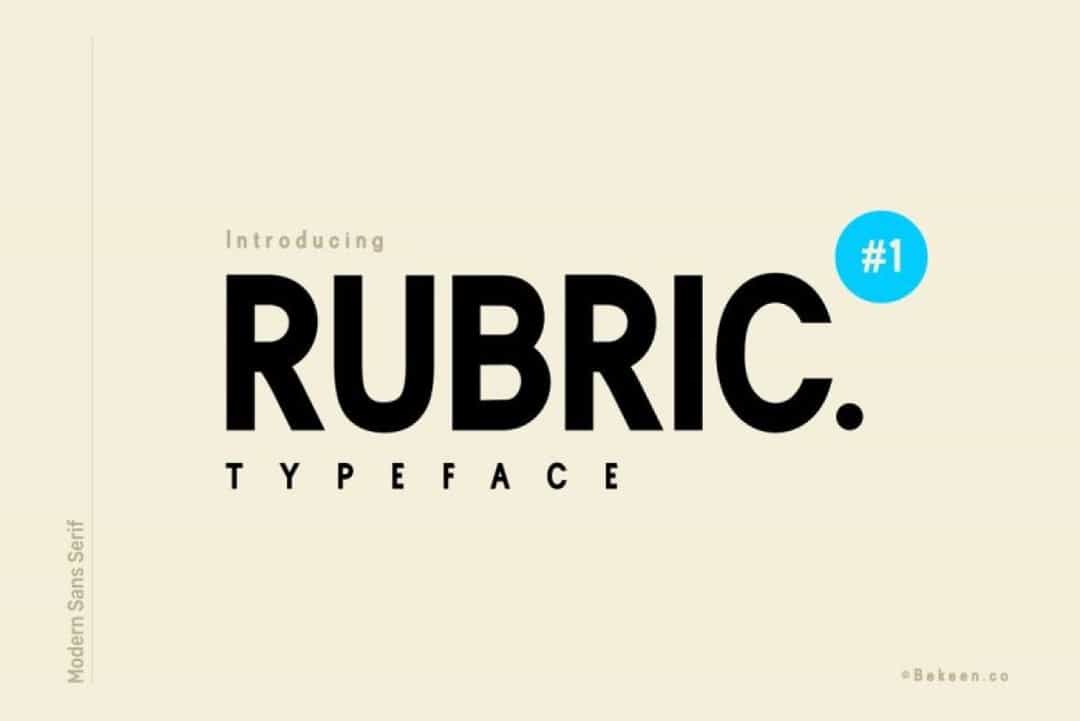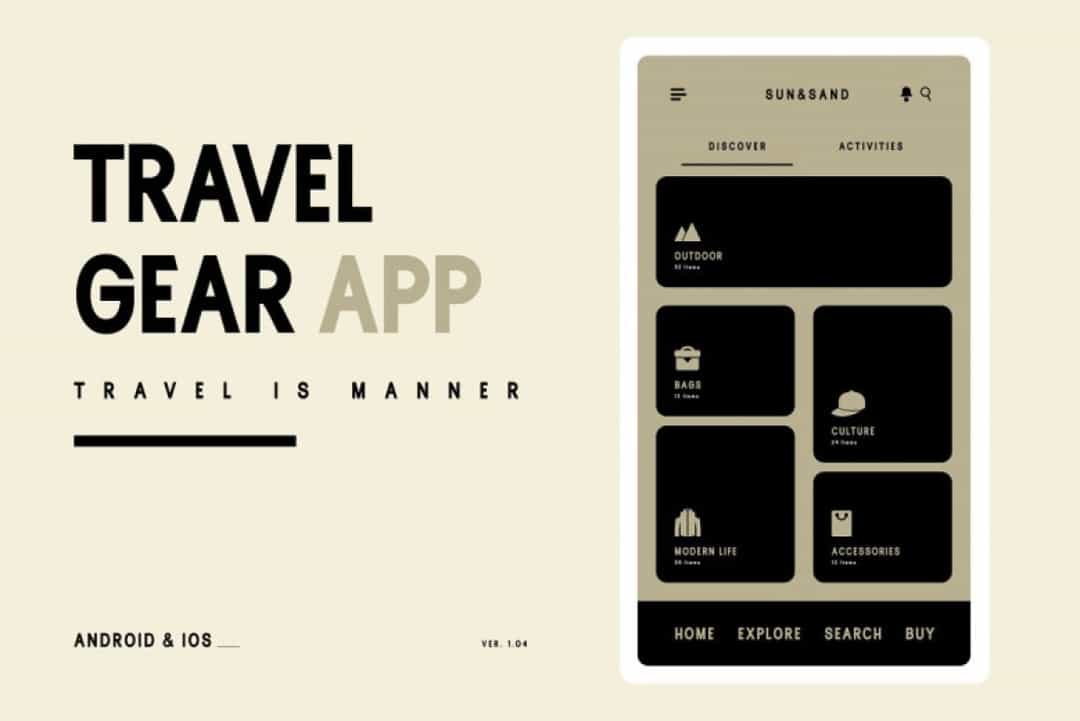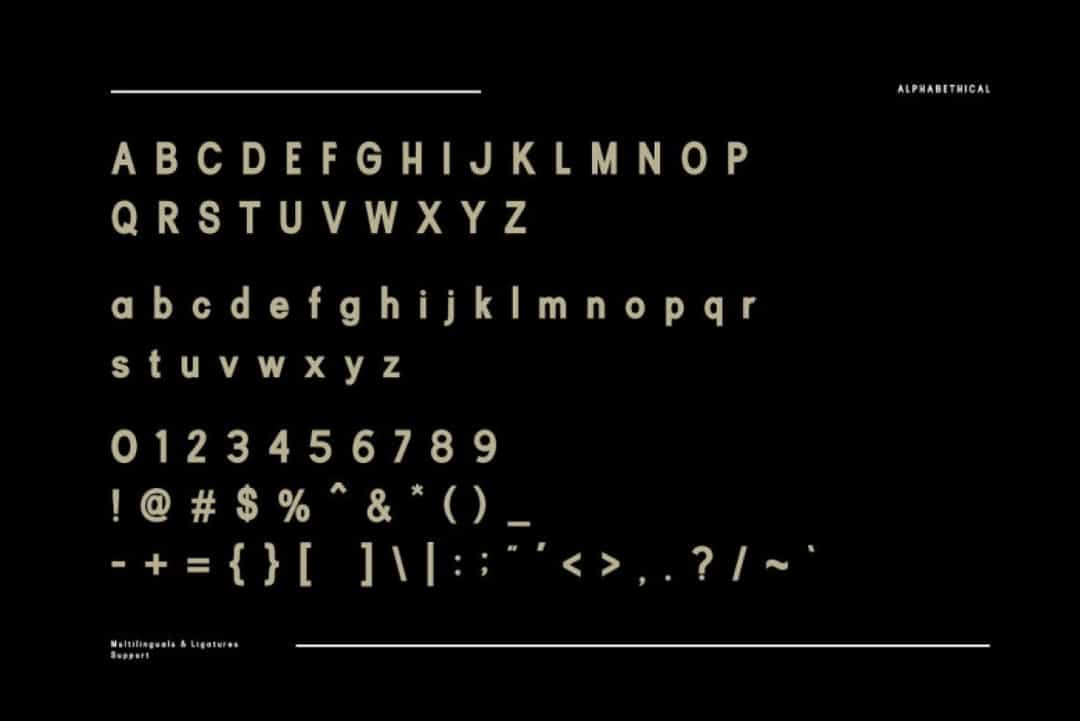
Rubric Font was inspired by magazine headlines. It’s combination of hard lines with soft curves creates an eye-catching minimalist appearance when used in magazines, packaging or advertisements.